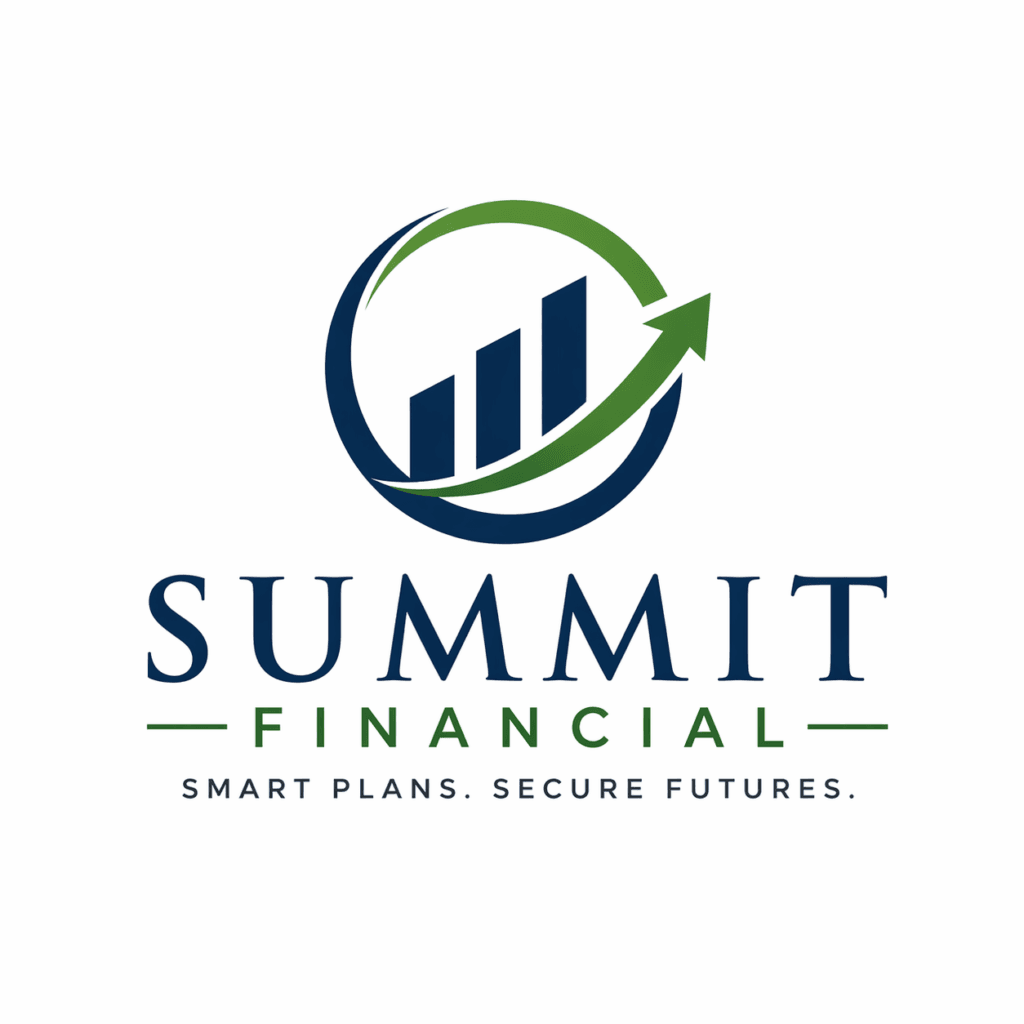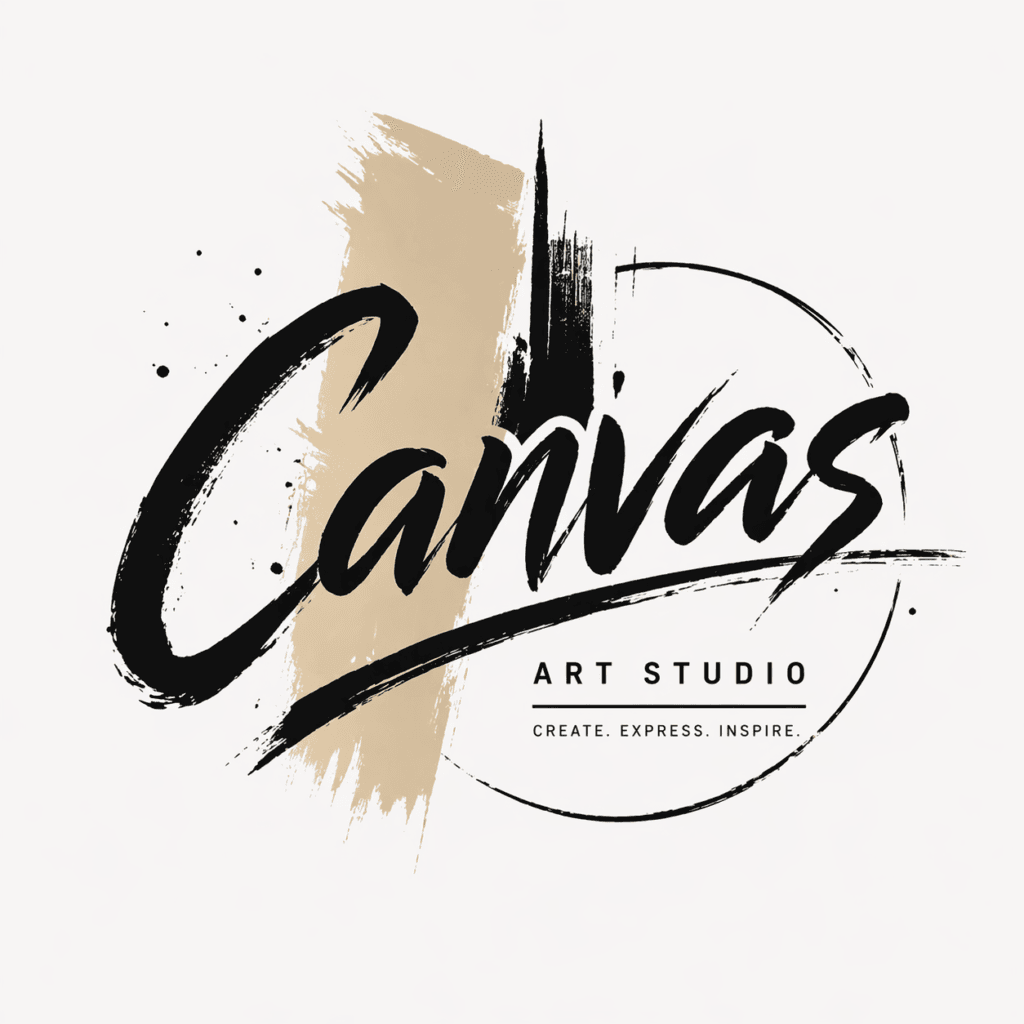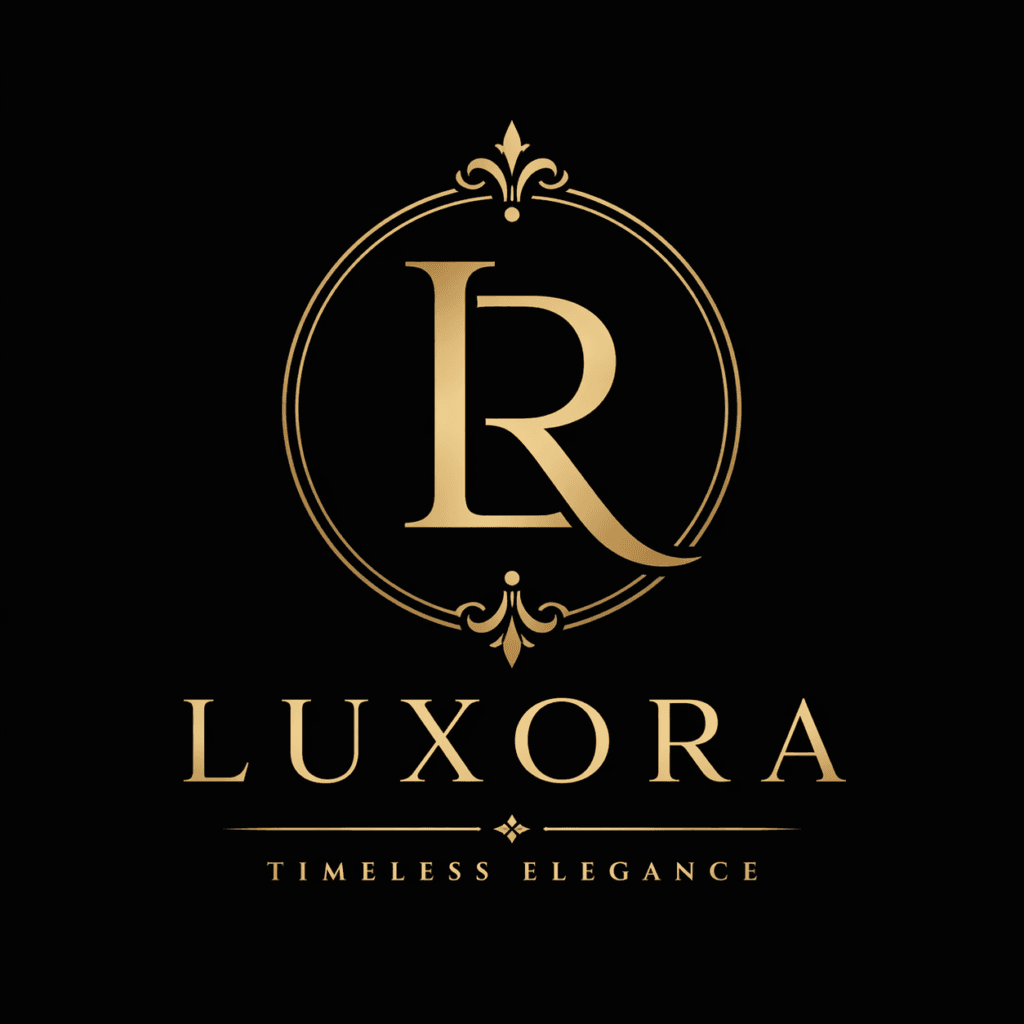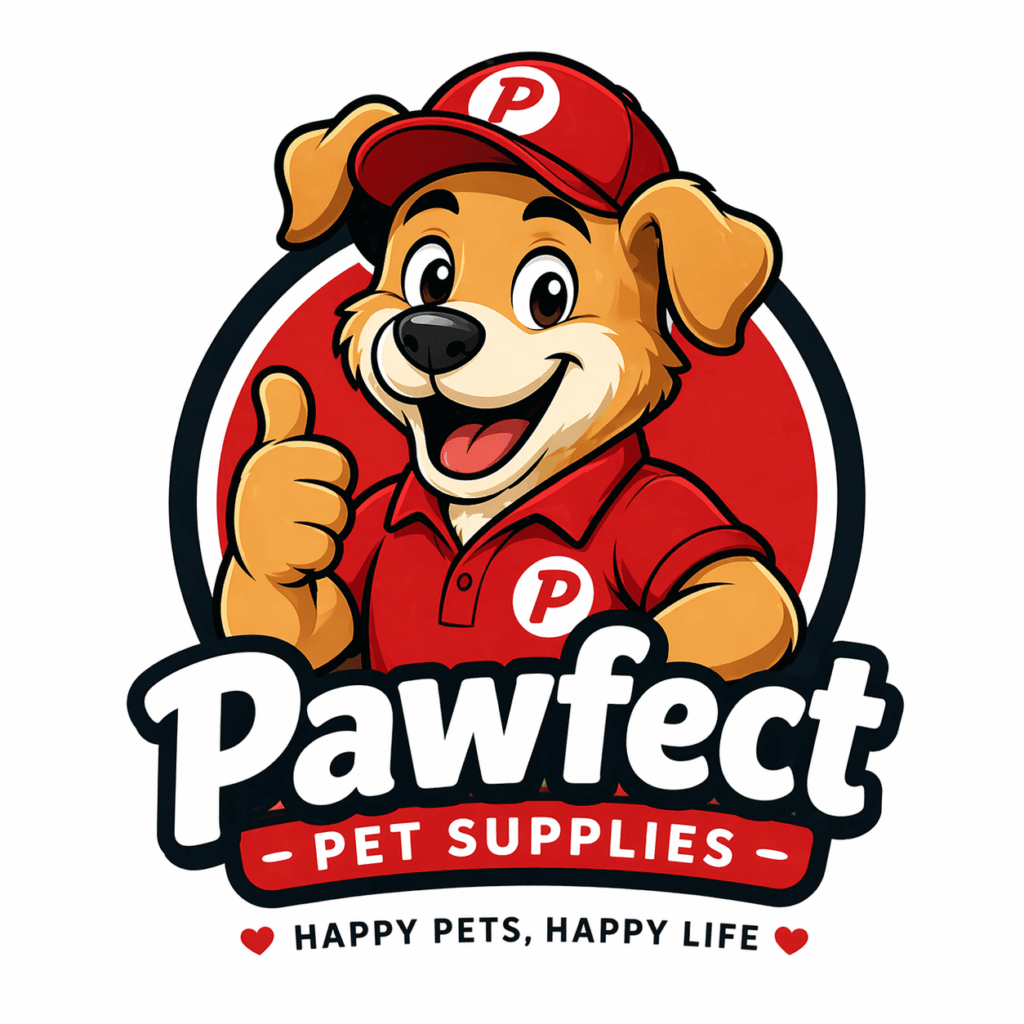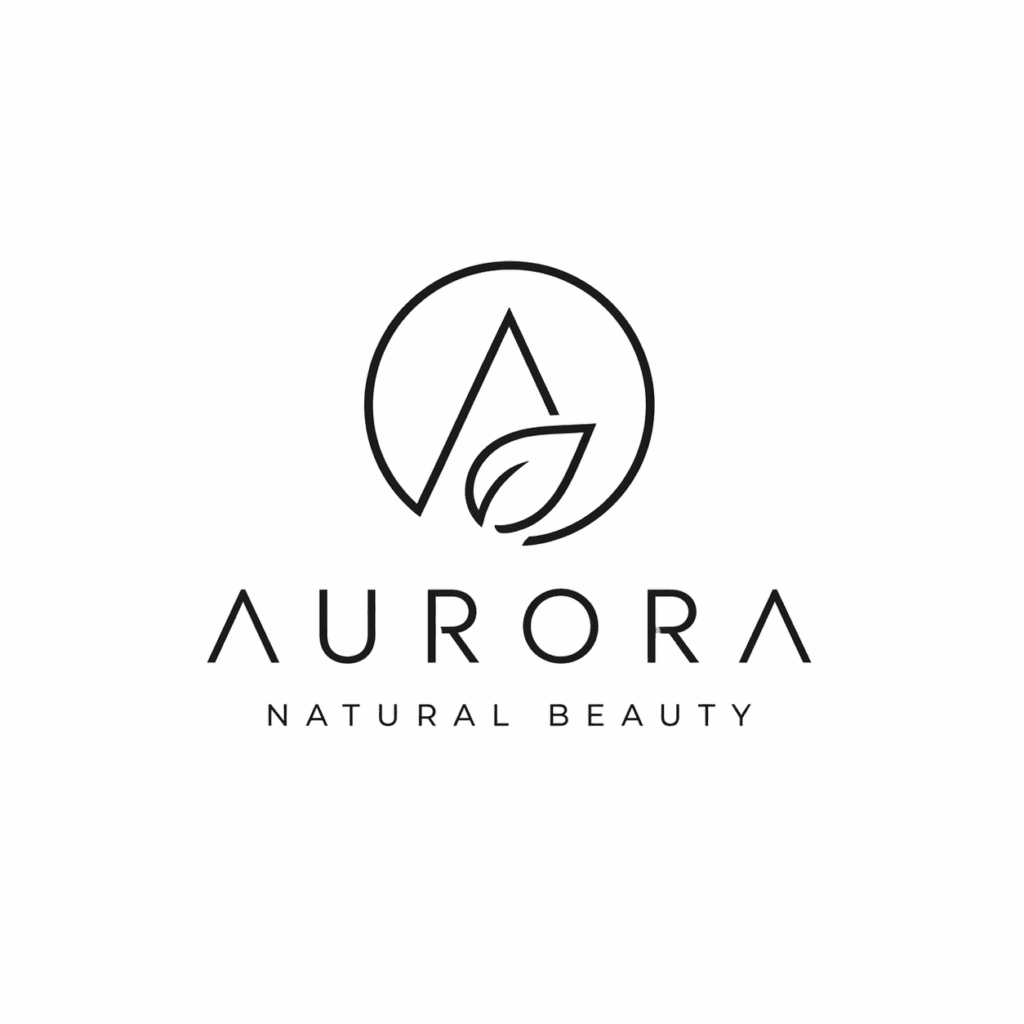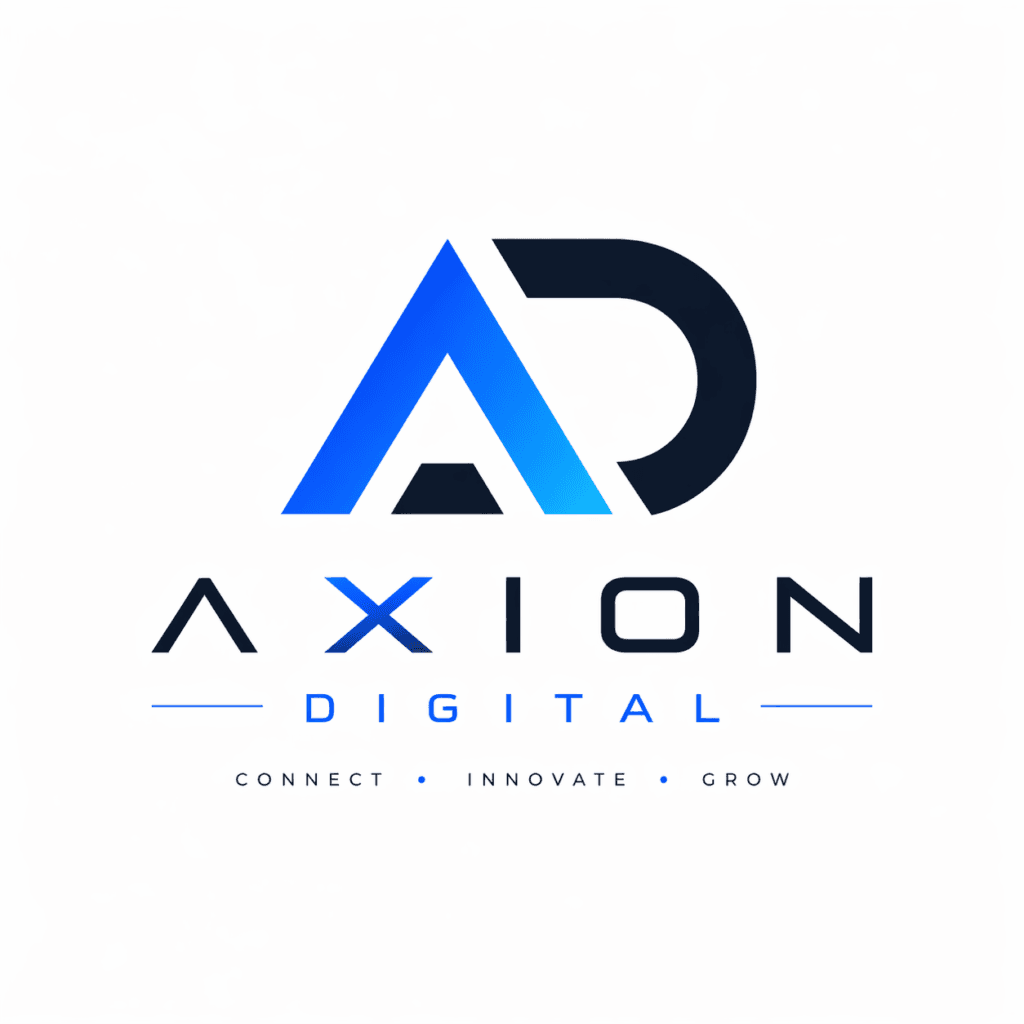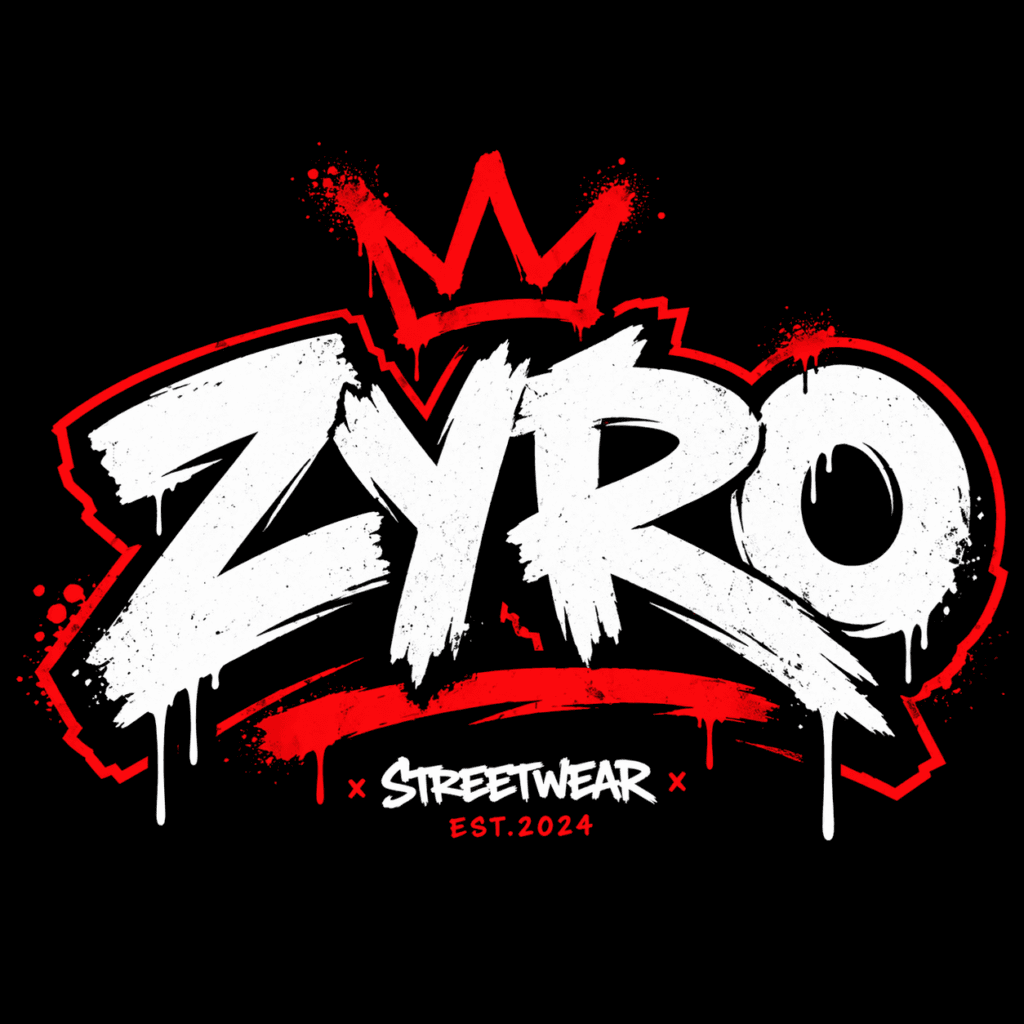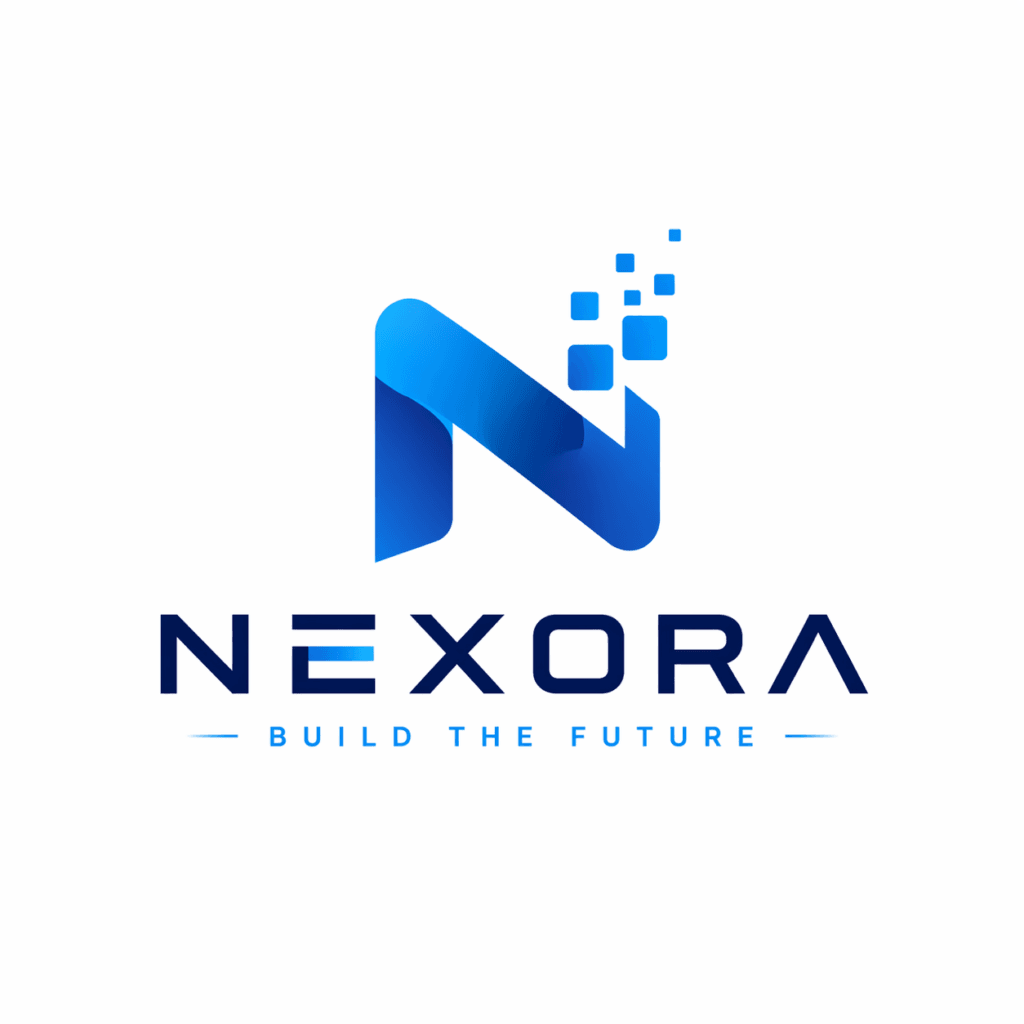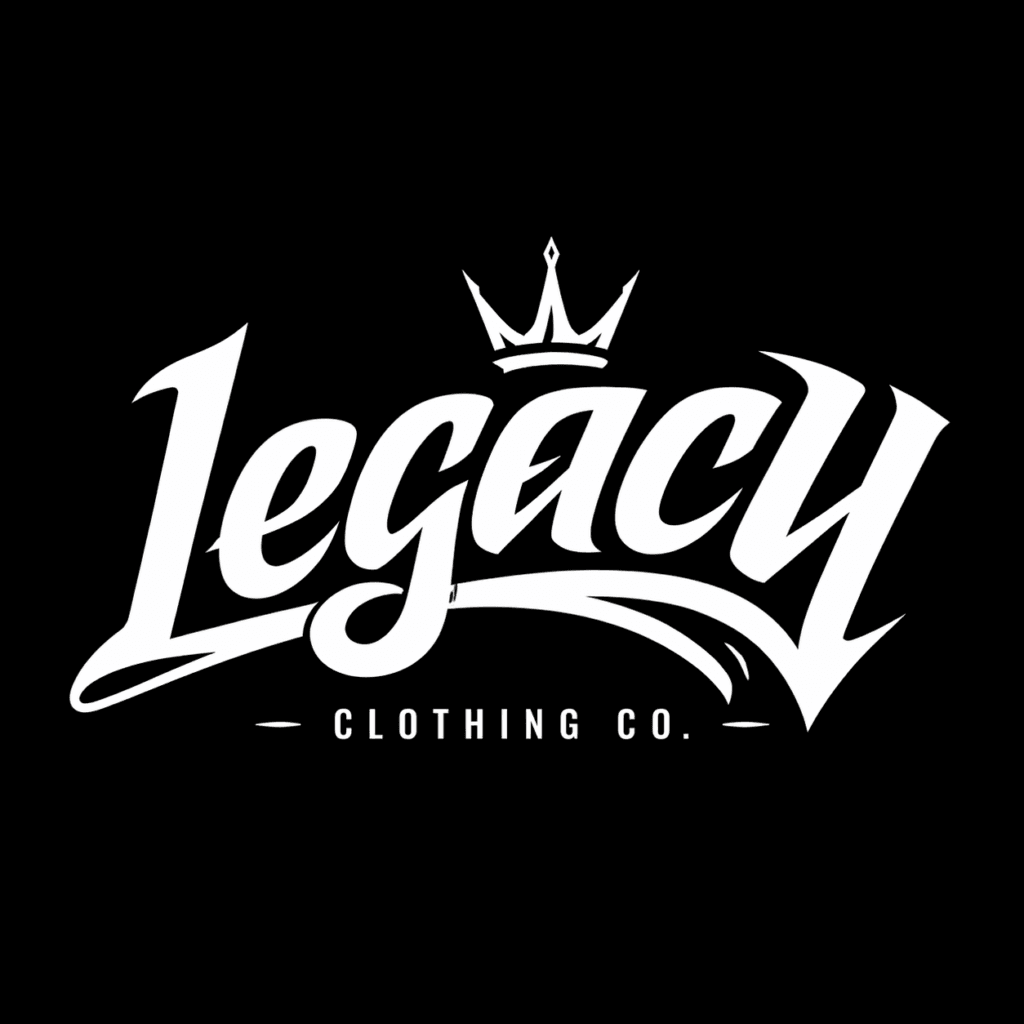
Creating a strong brand identity starts with a great logo, and using the right AI logo design prompts can make the process faster and more creative. Today, designers and logo creators use AI logo design prompts to generate ideas, explore styles, and build professional branding concepts. Whether you are designing for clients or your own projects, effective AI logo design prompts help you create unique and memorable logos. By mastering AI logo design prompts, you can improve both your workflow and creative output.
In this article, you will discover 50 powerful AI logo design prompts to help you create standout brand identities.
Why AI Logo Design Prompts Are Useful for Designers
Using AI prompts for logo design allows you to explore more ideas in less time.
- Faster concept generation
- More creative variations
- Improved efficiency
- Better design exploration
With strong AI prompts for logo design, you can unlock new creative possibilities.
AI Logo Design Prompts for Minimalist and Modern Logos
Minimal design is timeless and effective.
- “Minimal logo design, clean lines, simple shapes, modern typography, balanced layout”
- “Modern minimalist logo, monochrome color, geometric style, clean composition”
- “Simple logo design, negative space concept, professional look”
- “Minimal brand logo, elegant typography, subtle design elements”
- “Clean logo design, modern sans serif font, balanced spacing”
- “Minimal icon logo, simple shapes, modern identity style”
Example Minimal Logo Design.
These AI logo prompts create clean and professional logos.
AI Logo Design Prompts for Streetwear and Urban Branding
Streetwear logos require bold and expressive styles.
- “Streetwear logo design, graffiti style, bold typography, urban aesthetic”
- “Urban brand logo, edgy font, grunge texture, bold composition”
- “Hip hop logo design, strong lettering, street style visuals”
- “Graffiti logo, spray paint style, dynamic layout, bold colors”
- “Street brand logo, modern urban typography, aggressive style”
Example Streetwear Logo Design.
These AI logo prompts are perfect for streetwear brands.
AI Logo Design Prompts for Luxury and Elegant Brands
Luxury logos focus on sophistication.
- “Luxury logo design, serif typography, gold color palette, elegant style”
- “Premium brand logo, minimal layout, refined typography”
- “Elegant logo design, classic style, balanced composition”
- “Luxury fashion logo, clean serif font, high-end aesthetic”
- “Exclusive brand logo, simple design, sophisticated look”
Example Elegant Logo Design.
These AI logo prompts create premium brand identity.
AI Logo Design Prompts for Tech and Startup Brands
Tech logos need a modern and innovative feel.
- “Tech logo design, futuristic style, clean lines, modern typography”
- “Startup logo, minimal design, digital style, blue color palette”
- “AI company logo, abstract shapes, modern branding”
- “Software brand logo, sleek design, geometric style”
- “Innovation logo, modern layout, digital aesthetic”
Example Startup Logo Design.
These AI logo prompts fit modern businesses.
AI Logo Design Prompts for Creative and Artistic Brands
Creative brands need unique visuals.
- “Creative logo design, abstract shapes, vibrant colors, artistic style”
- “Art studio logo, expressive typography, modern art influence”
- “Design agency logo, bold layout, creative composition”
- “Colorful logo design, dynamic shapes, unique style”
- “Artistic brand logo, mixed media style, modern design”
Example Art Studio Logo.
These AI logo prompts push creative boundaries.
AI Logo Design Prompts for Typography-Based Logos
Typography can define a brand.
- “Typography logo, bold lettering, minimal background, modern style”
- “Custom font logo, unique lettering, clean composition”
- “Monogram logo design, elegant typography, minimal style”
- “Lettermark logo, modern font, balanced spacing”
- “Text-based logo, strong hierarchy, simple layout”
Example Custom Font Logo.
These AI logo prompts highlight typography.
AI Logo Design Prompts for Vintage and Retro Logos
Retro logos add personality.
- “Vintage logo design, retro colors, classic typography, textured style”
- “Retro brand logo, nostalgic design, bold shapes”
- “Old-school logo, vintage aesthetic, classic layout”
- “Retro typography logo, 80s style, vibrant colors”
- “Vintage badge logo, detailed design, classic feel”
Example Old-school Logo.
These AI logo prompts create timeless styles.
AI Logo Design Prompts for Mascot and Character Logos
Mascot logos are engaging and memorable.
- “Mascot logo design, cartoon character, bold colors, fun style”
- “Character logo, friendly design, modern illustration style”
Improving these areas strengthens your AI logo prompts output.
Using AI logo design prompts is one of the fastest ways to generate creative and professional logo ideas. By exploring different styles and refining your prompts, you can create unique brand identities that stand out. Whether you are a designer or a brand owner, mastering AI logo prompts will give you a strong creative advantage.
Start using these AI logo prompts today and elevate your logo design process.